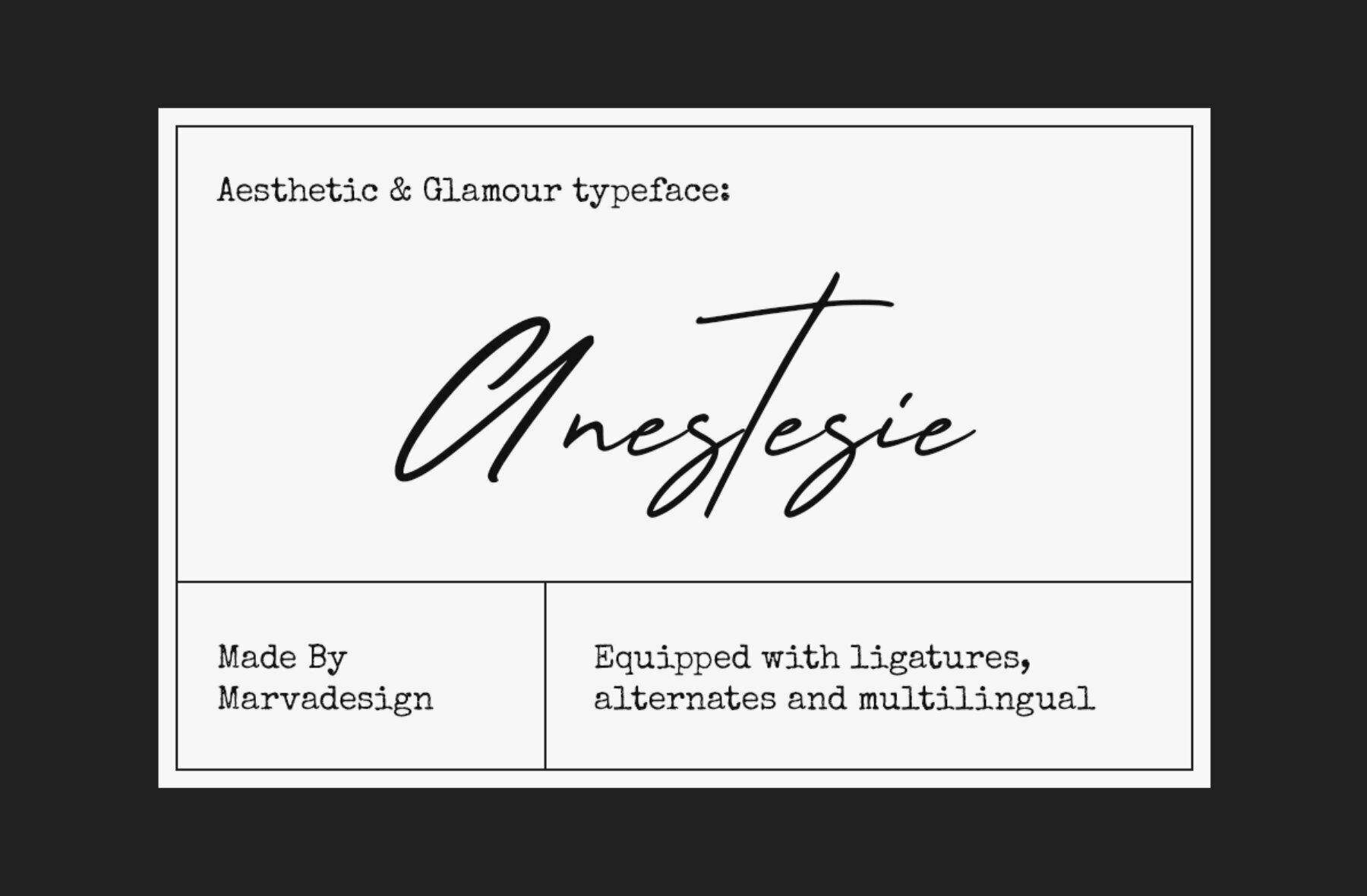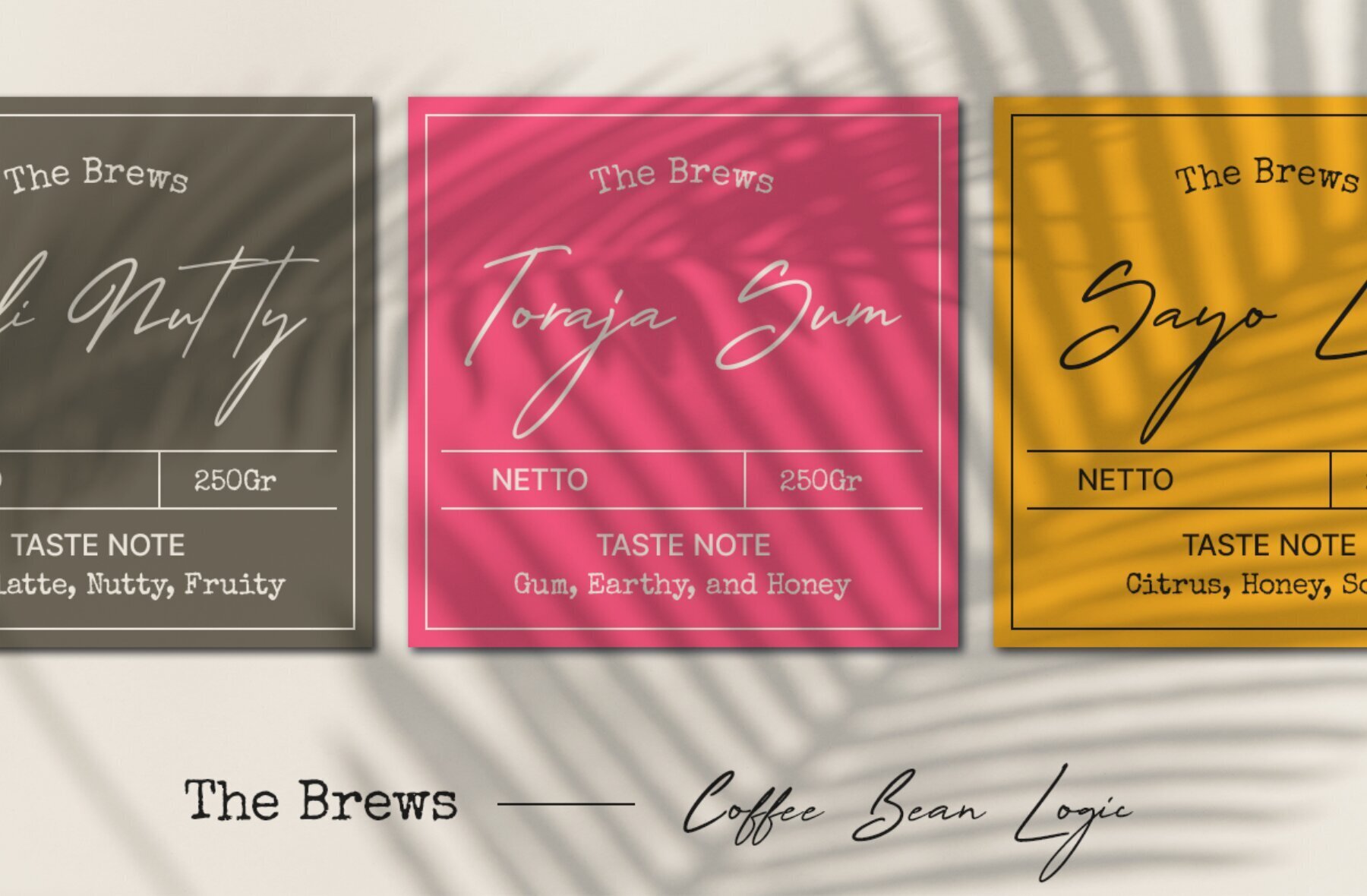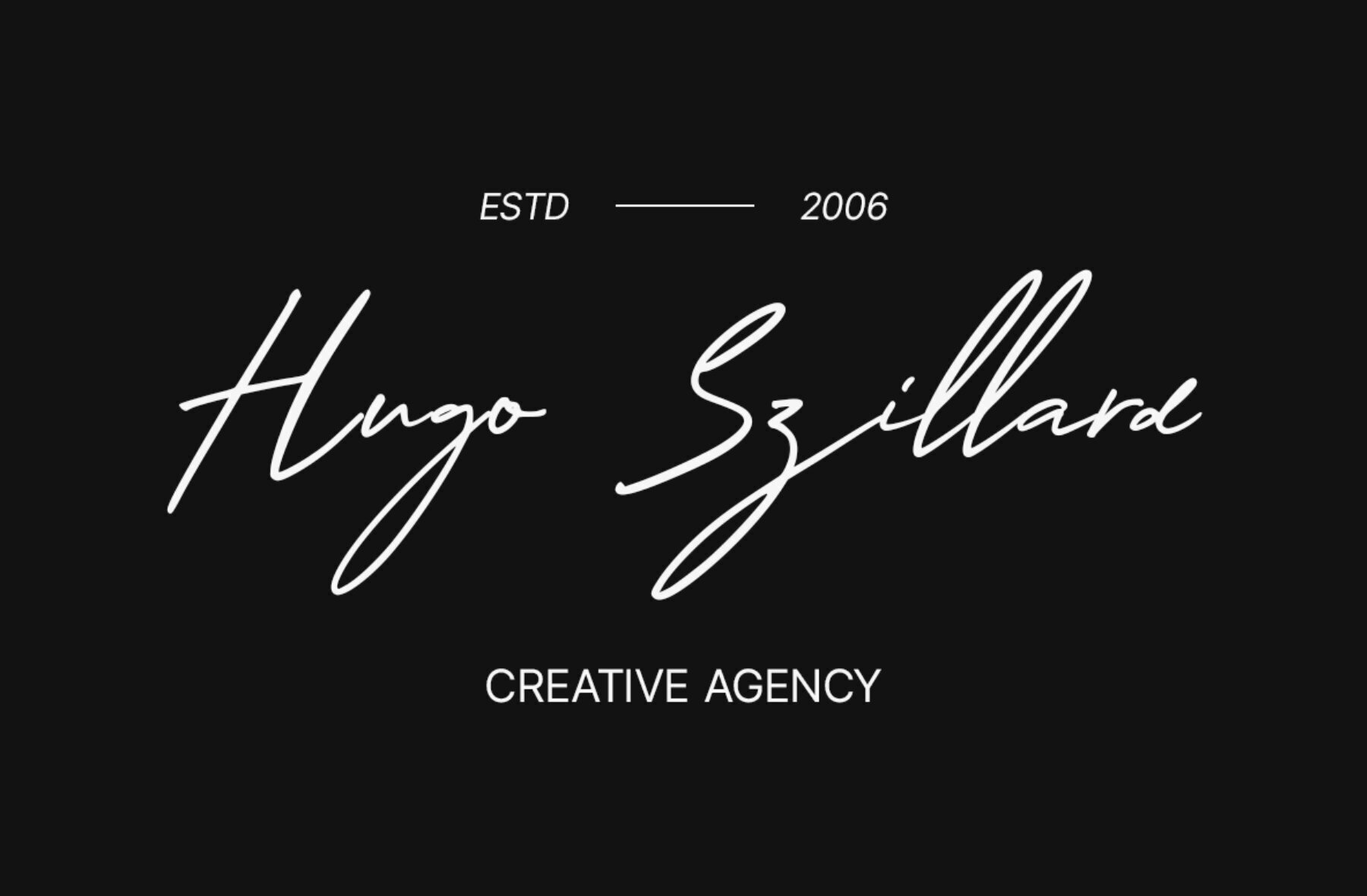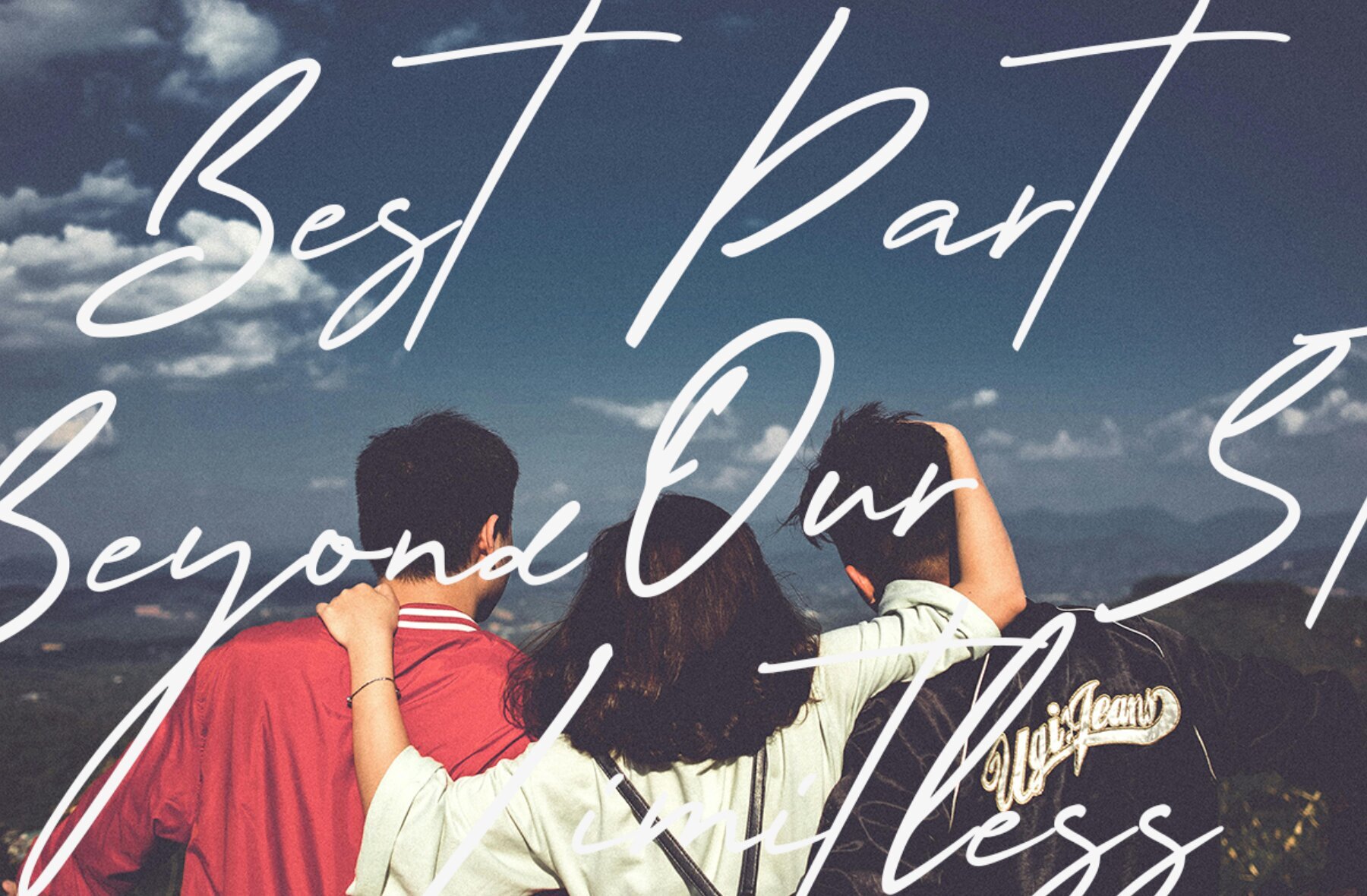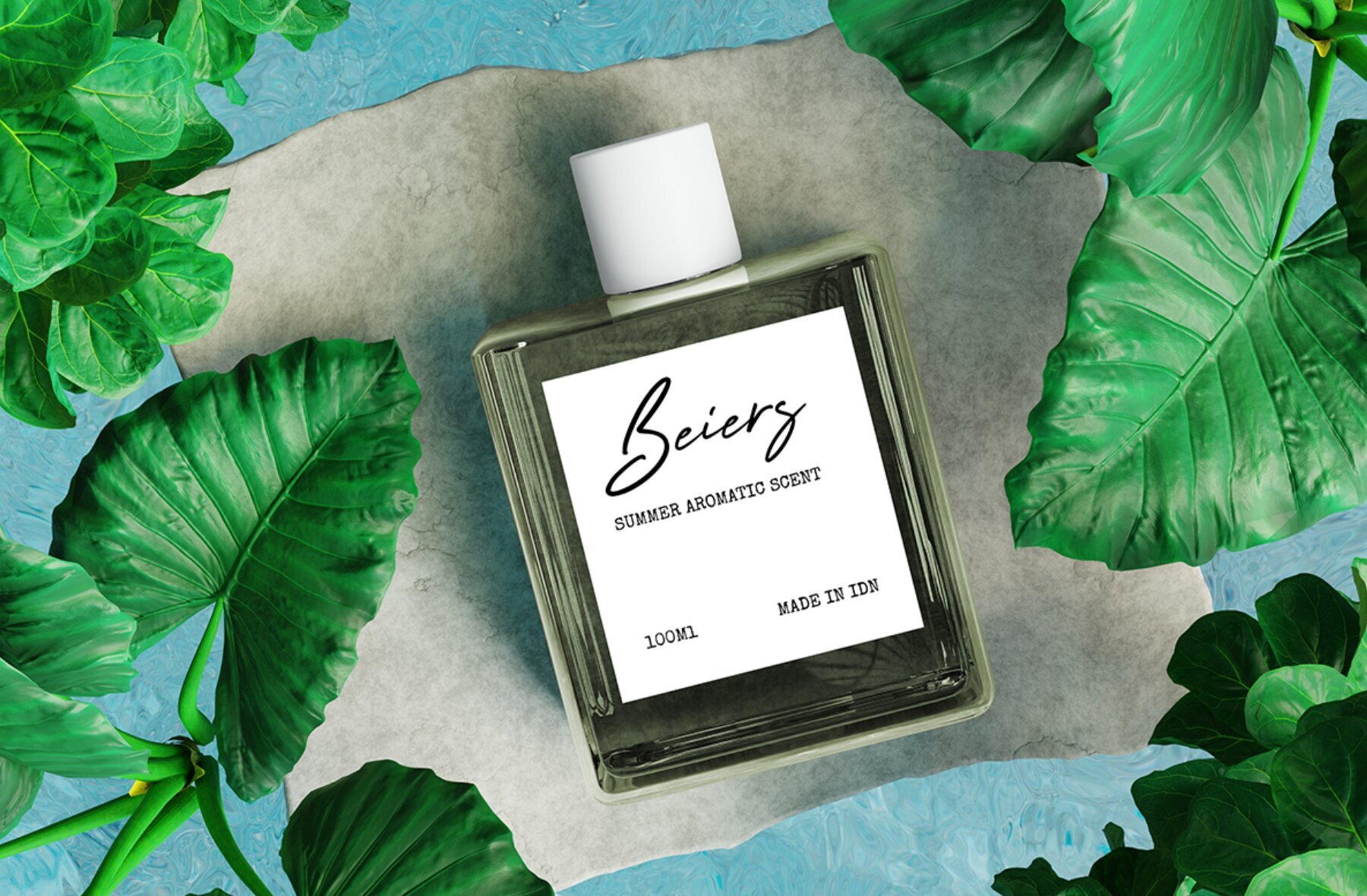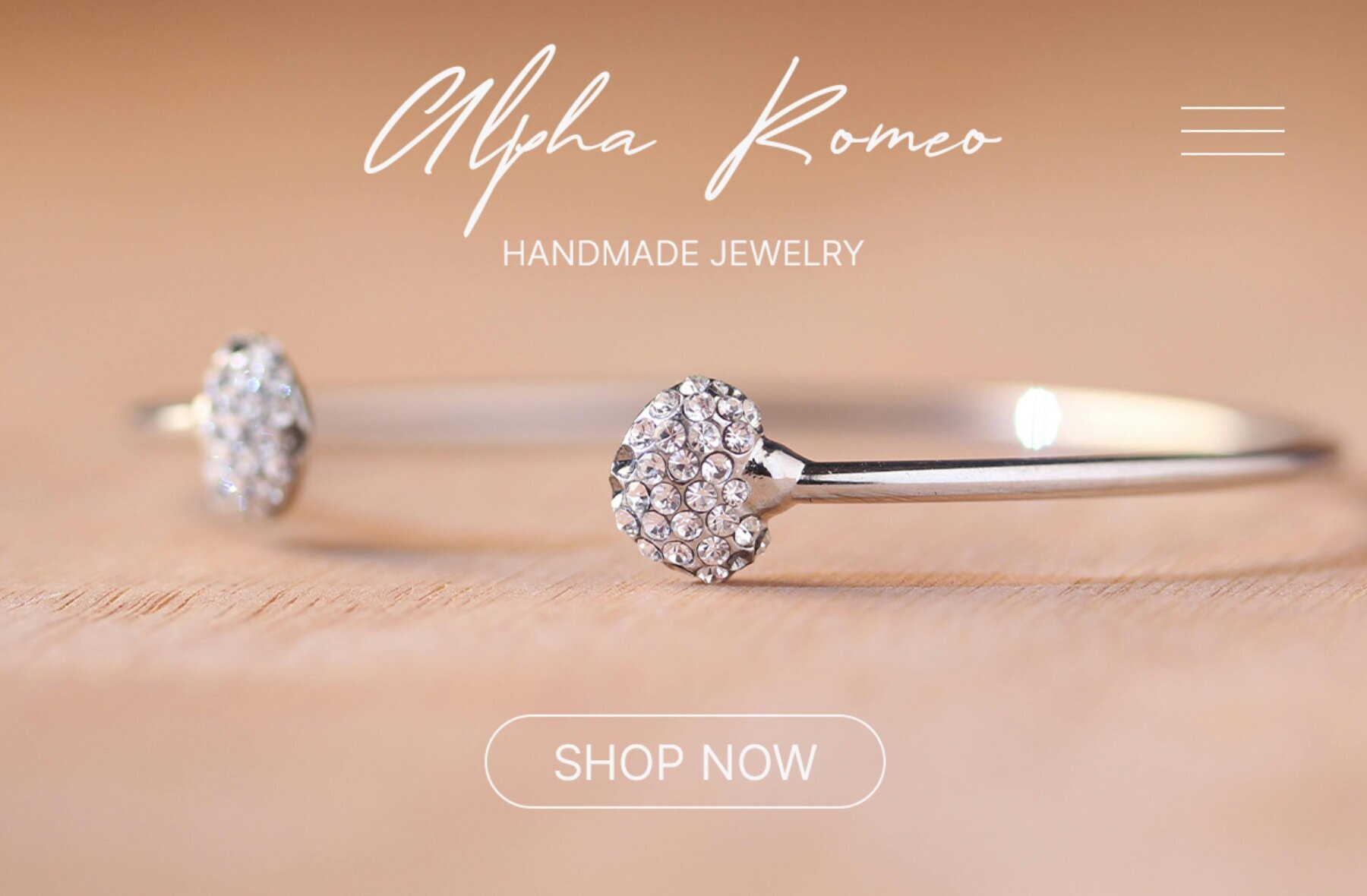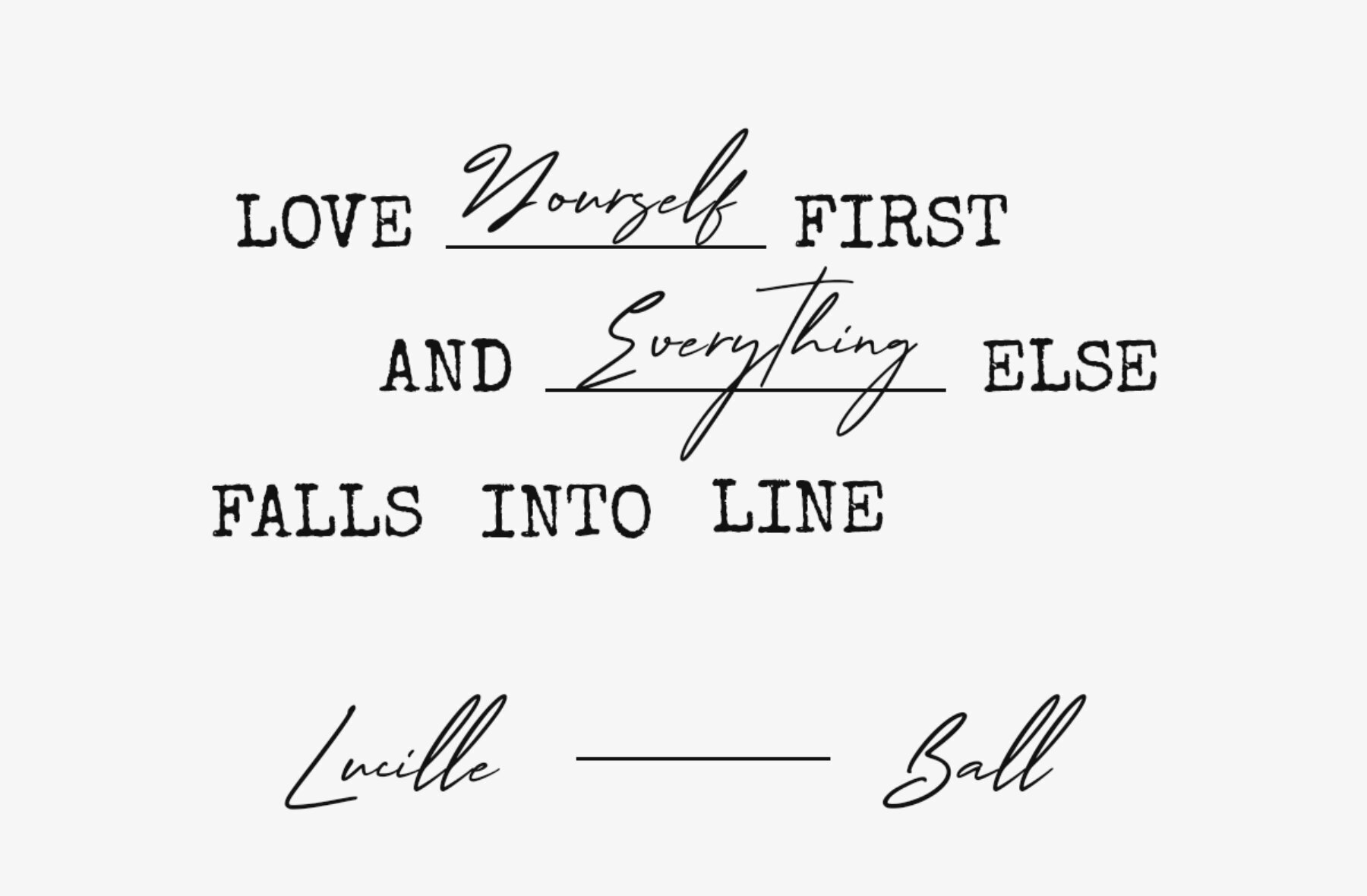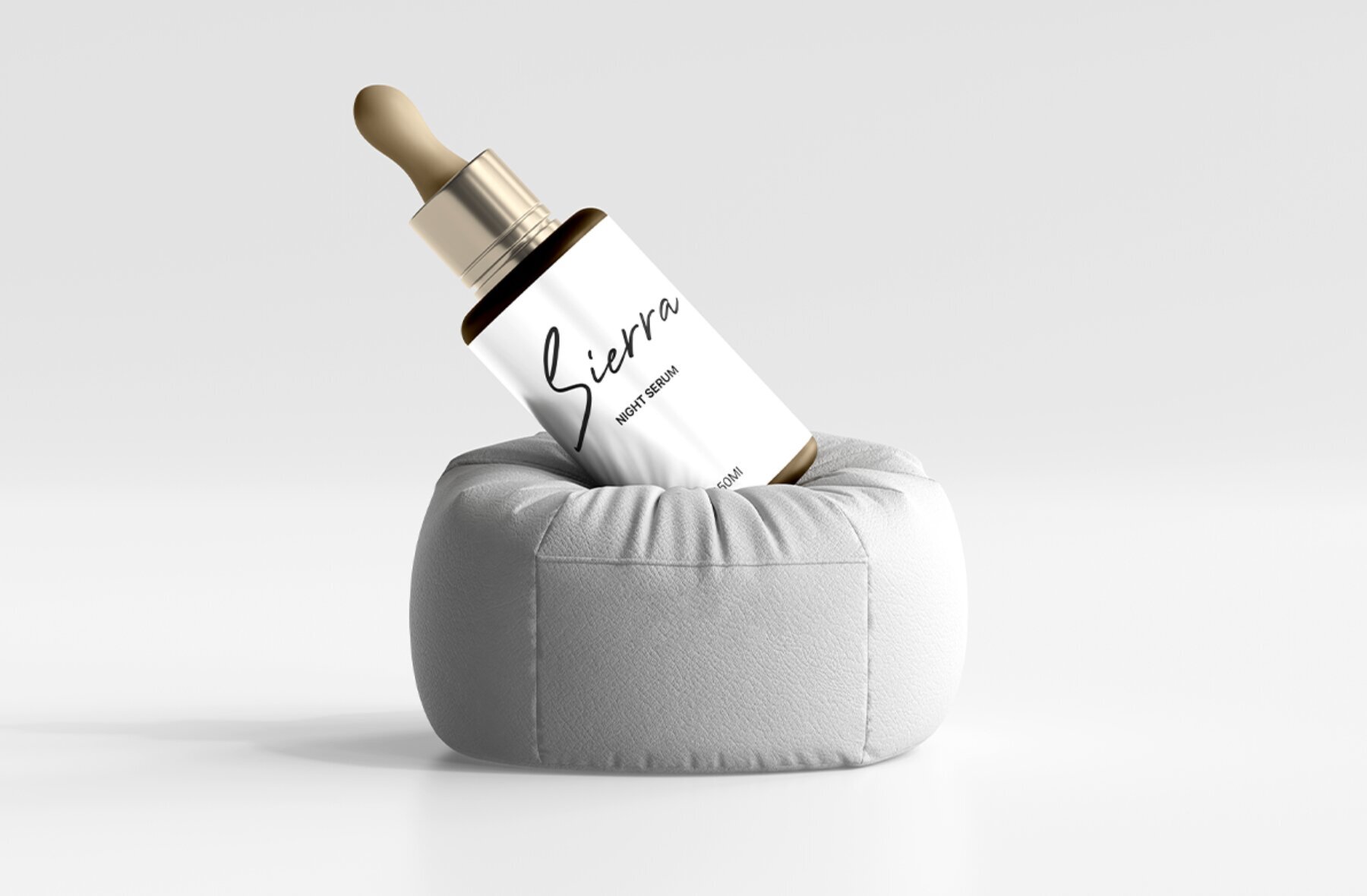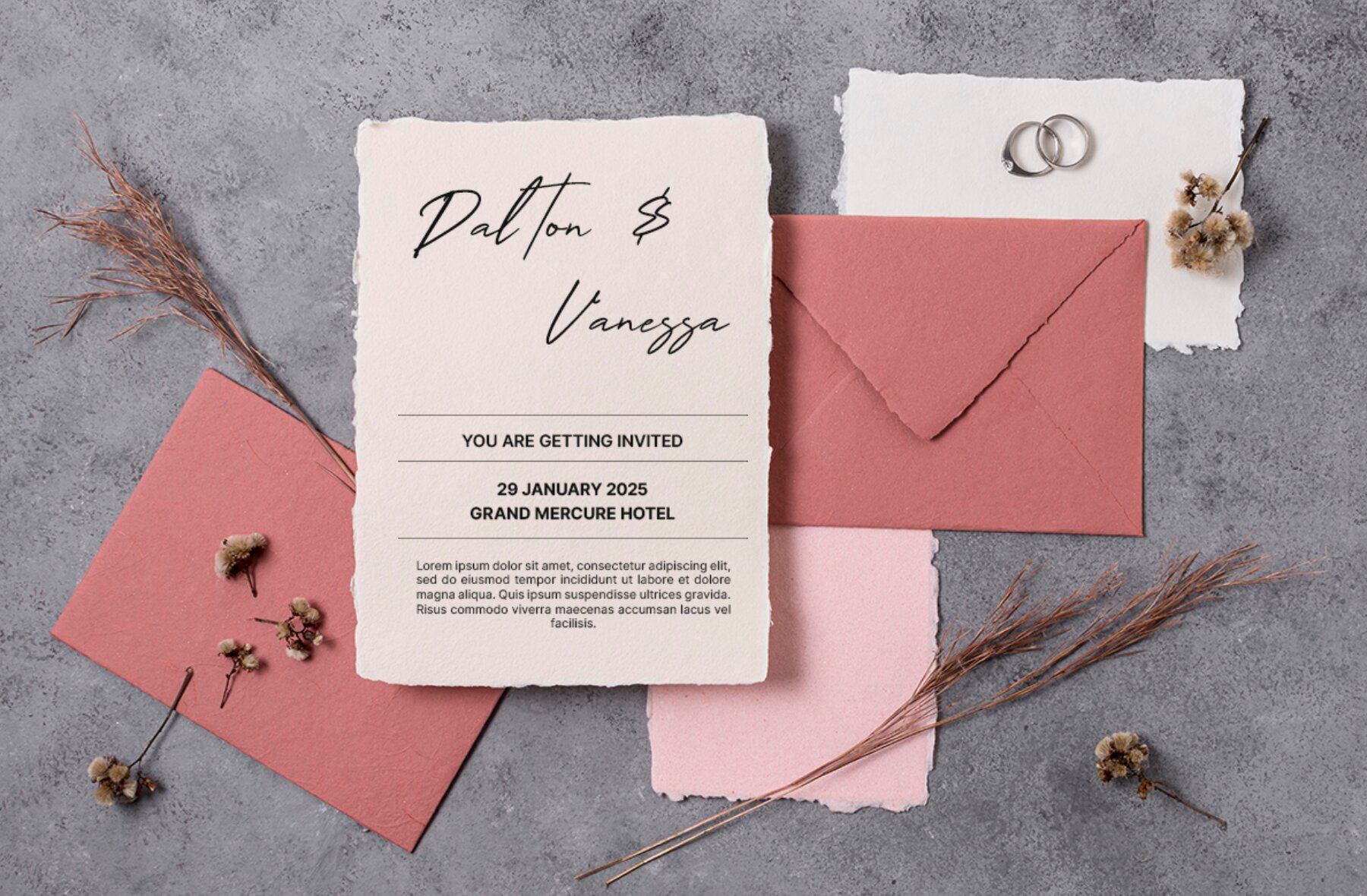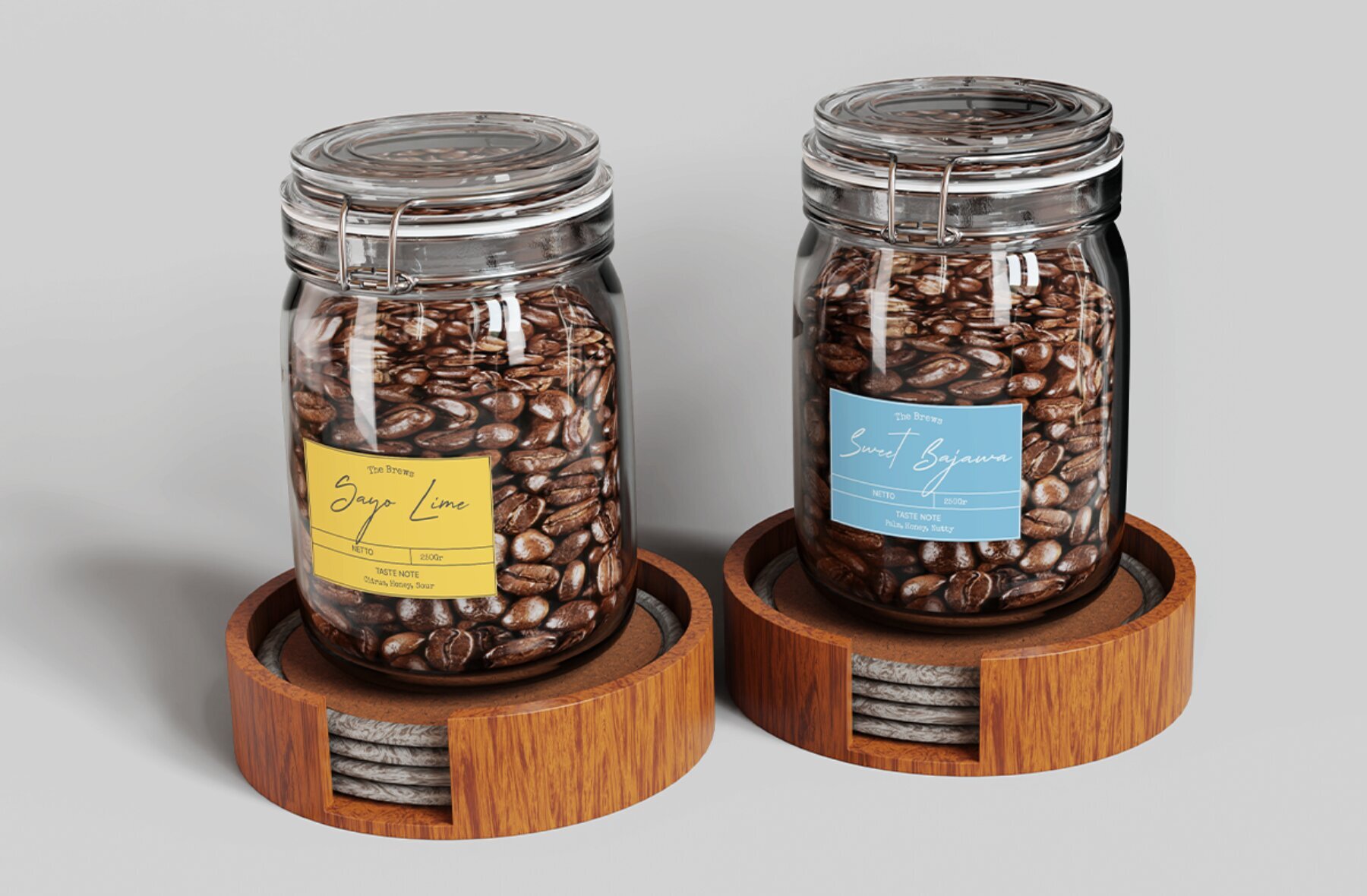
Anestesie Font
Anestesie
Anestesie is a chic script font exuding sophistication with its flowing curves and elegant strokes. Perfect for bringing an aesthetic glamour to wedding invitations, luxury branding, or stylish social media graphics, it comes equipped with ligatures and alternate characters to enhance typographic creativity.